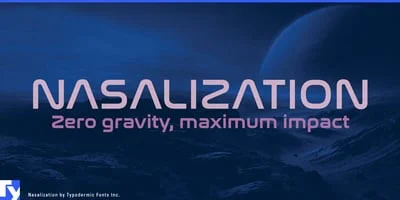
Nasalization Font is ideal for space agency branding, aerospace technology companies, NASA mission materials, futuristic sci-fi projects, space exploration campaigns, astronaut training programs, rocket launch promotions, and cosmic research presentations. This advanced typeface brings space-age precision and NASA-inspired excellence to any design project celebrating space exploration and the technological achievements of human spaceflight.
What makes Nasalization Font exciting is its perfect embodiment of NASA's typographic legacy combined with space-age functionality that captures the precision engineering and technological excellence required for successful space missions and aerospace innovation. The streamlined letterforms feature aeronautical proportions and mission-critical clarity that create an unmistakably space-age appearance. Each character launches with NASA precision, making it ideal for organizations that represent space exploration, aerospace technology, and the pioneering spirit of human space travel.
The Nasalization Font family typically includes multiple weights from light to bold with complete uppercase and lowercase letters, numbers, punctuation marks, and aerospace symbols. Many versions feature additional space-themed decorative elements, NASA-inspired motifs, and mission control symbols that enhance the space exploration aesthetic and provide creative flexibility for aerospace and scientific design applications.
Whether you're developing space technology brands or creating aerospace mission materials, Nasalization Font offers unmatched space authority and NASA-level precision. This mission-critical typography choice transforms ordinary text into space communications that resonate with audiences fascinated by space exploration and aerospace achievement. The font's space-grade construction ensures exceptional performance across aerospace applications while maintaining its distinctive NASA character that makes every design project feel like an official space mission where precision engineering meets human courage in the endless frontier of space exploration.